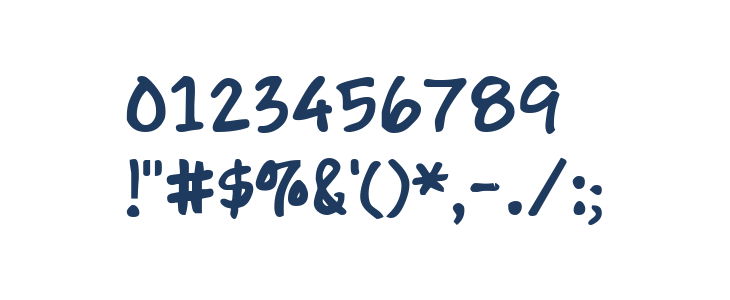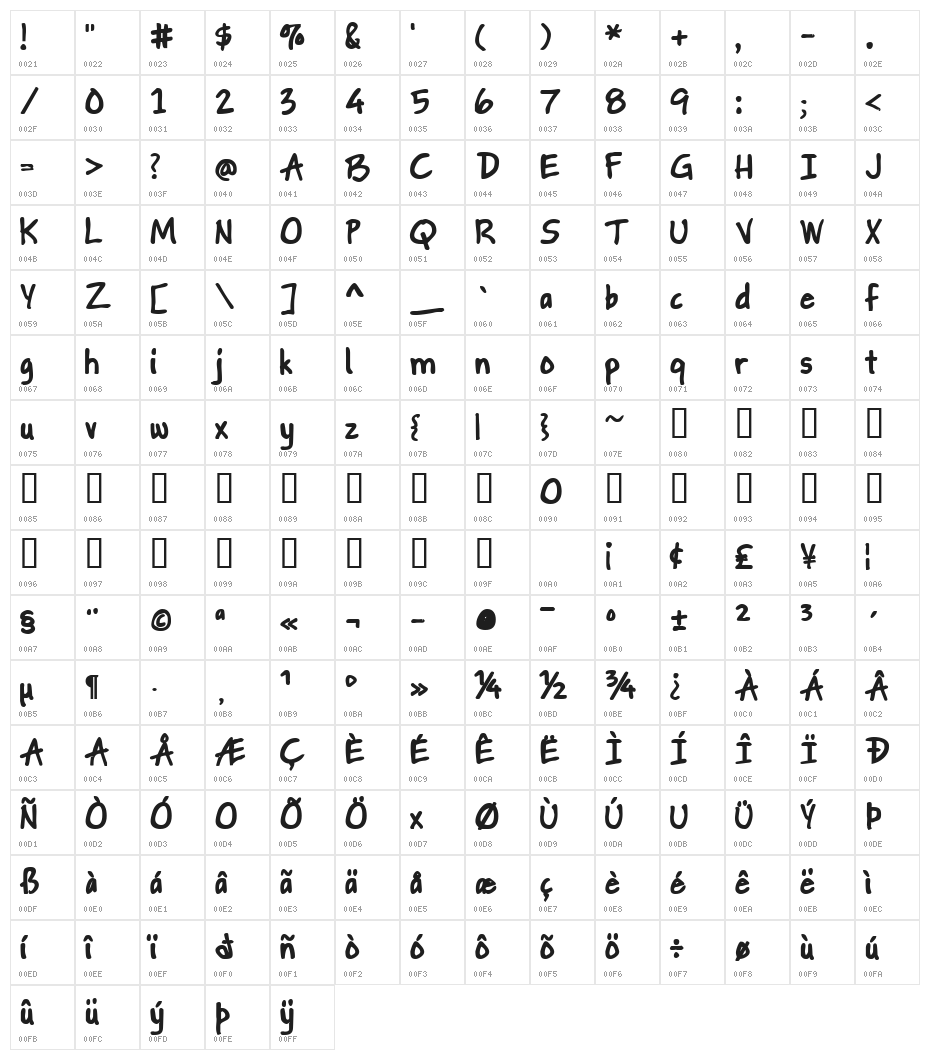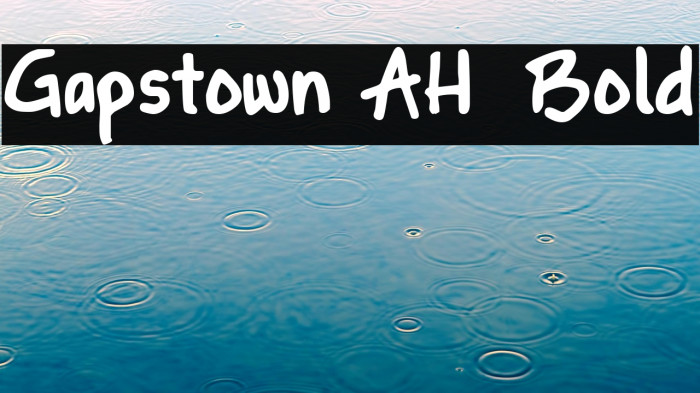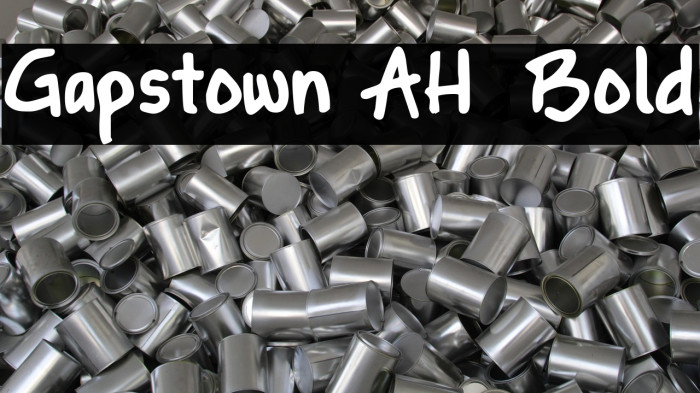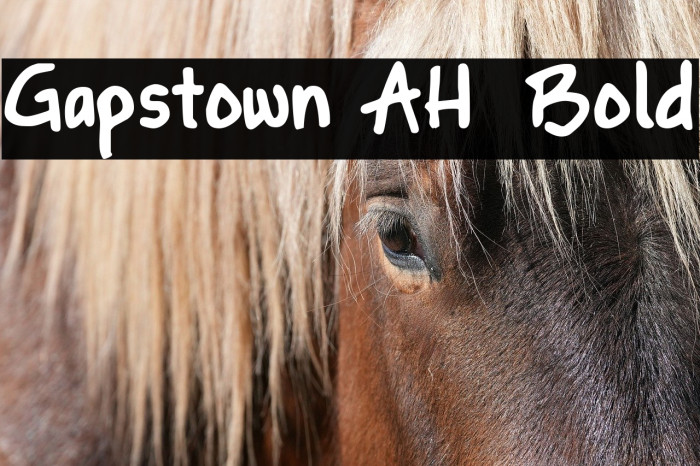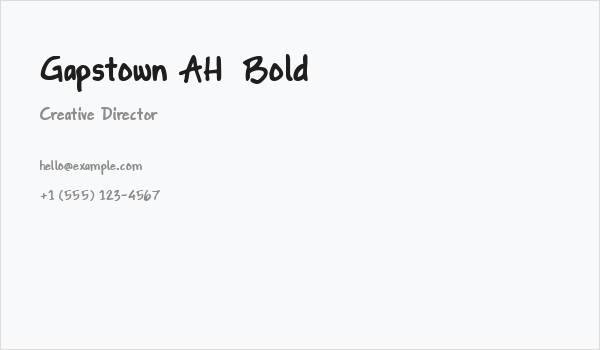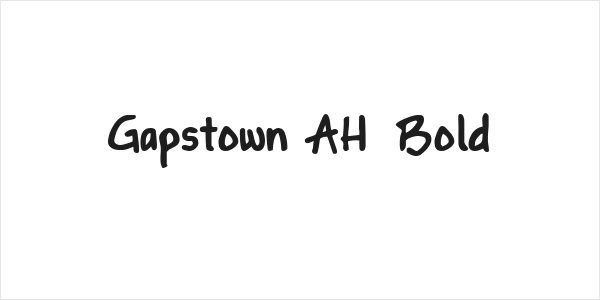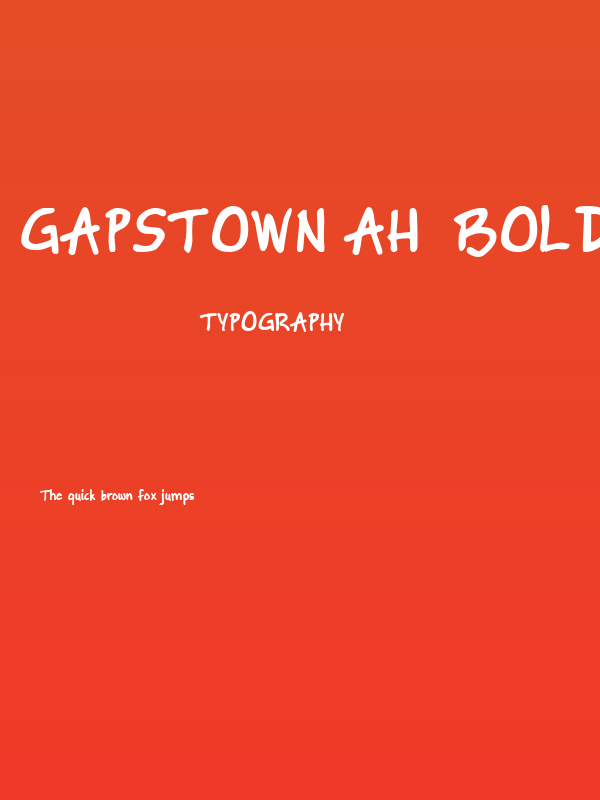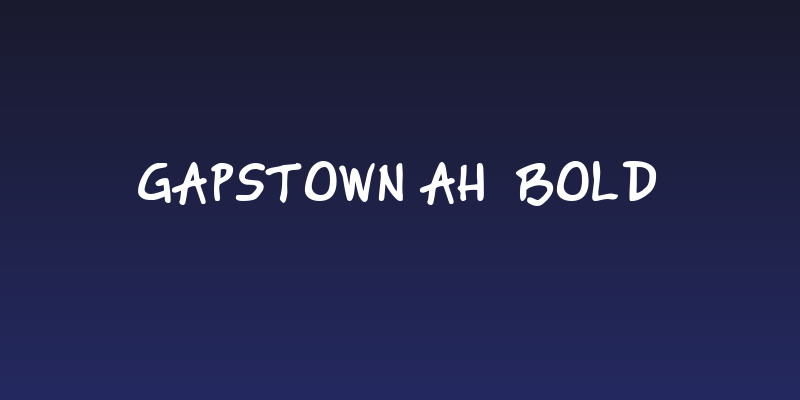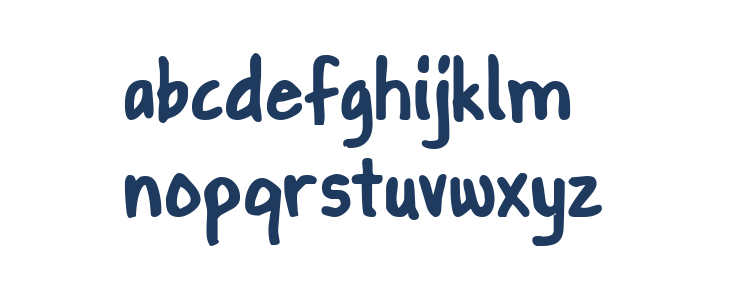
Gapstown AH Bold Font
Gapstown AH Bold Description
This font features a bold, handwritten style with a playful and casual appearance. The characters are rounded and slightly irregular, giving it a friendly and approachable feel. The uppercase and lowercase letters maintain a consistent style, with smooth curves and a slight slant that adds to its informal charm. The numerals and special characters are designed to match the overall aesthetic, ensuring a cohesive look across all text. This font is ideal for projects that require a personal touch or a sense of whimsy.
| Use Case | Logos, Headlines, Informal text |
| Proposed Projects | Great for greeting cards, children's books, playful branding, and casual invitations. |